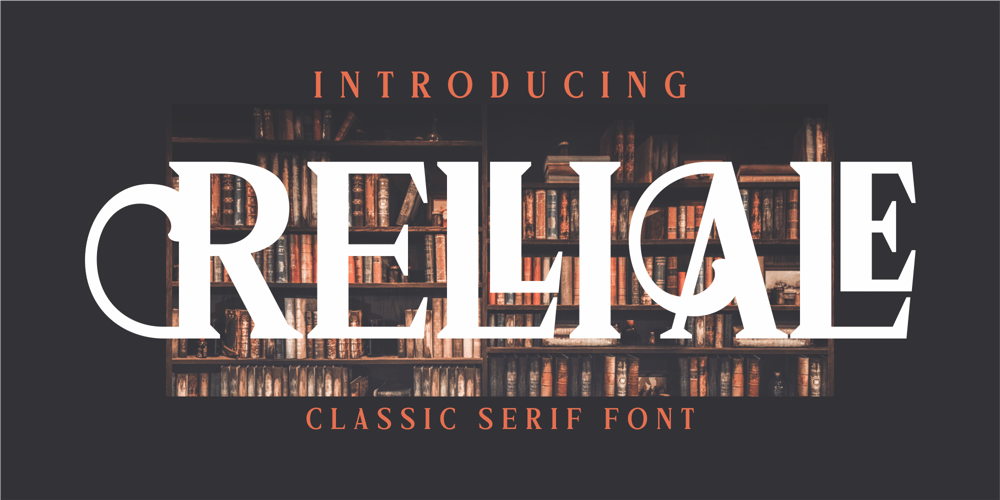
Relliale
Relliale font
Relliale Font Family was designed by Heru Utama Putra and published by Letterena Studios. Relliale contains 2 styles and family package options. This font is inspired by a library we visited. Neat and elegant books make it our inspiration.Introducing Relliale – A Display Serif FontThis gorgeous, stylish and modern font can be used for a host of different content needs and projects. Ideal for social media banners; posts, and ads, printed quotes, t-shirt designs, packaging, or even as a modern text overlay to any background image.Our font always includes Multilingual option to make your branding globally accepted.Features: Ligatures Alternate Multilingual Support PUA Encoded Numerals and Punctuation